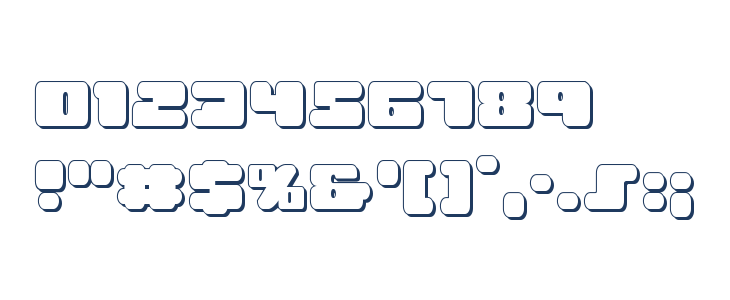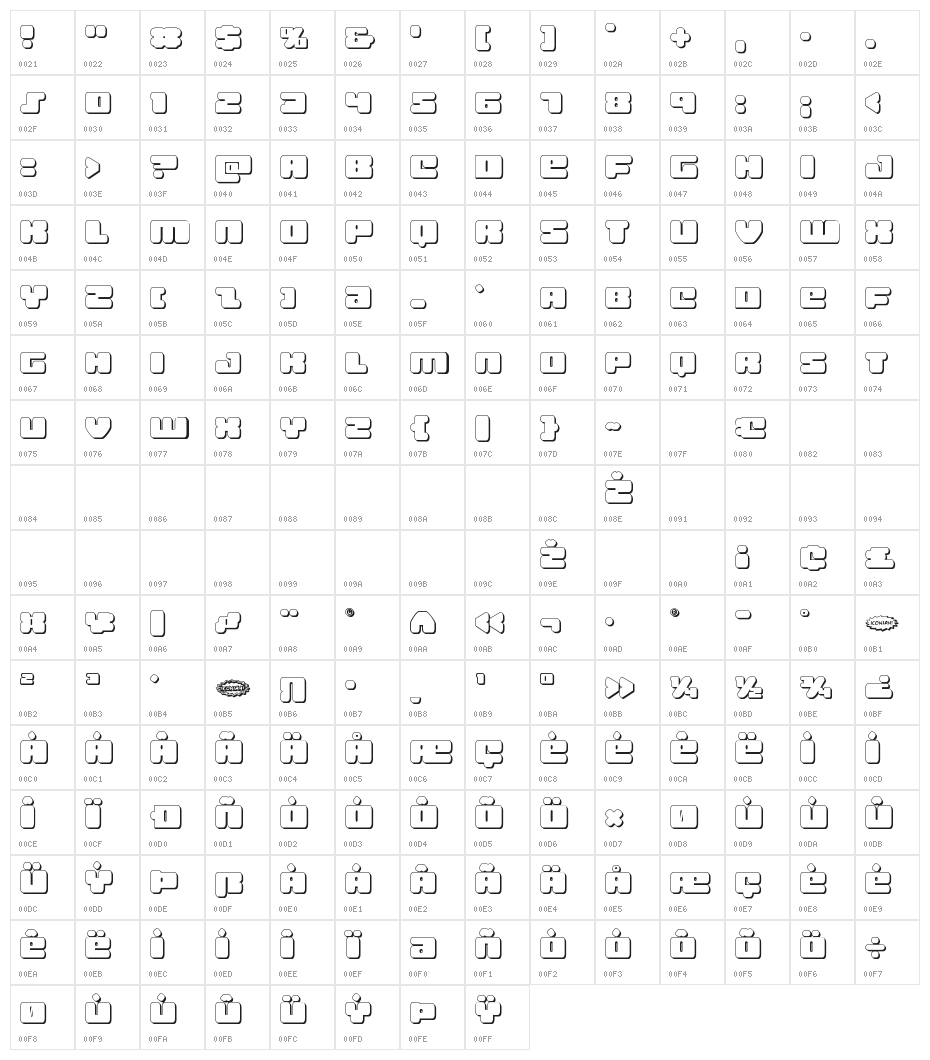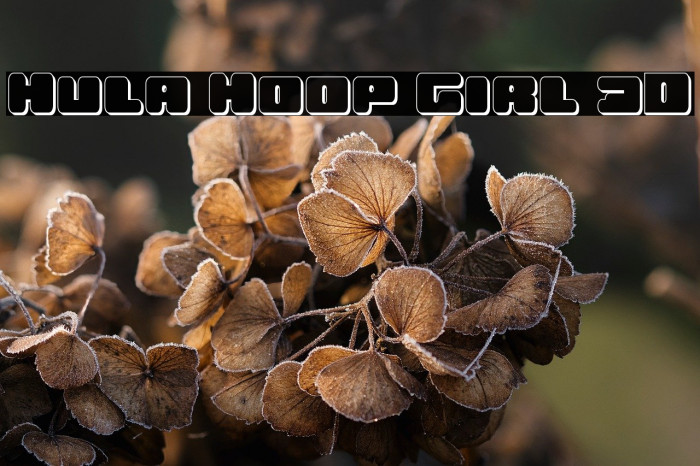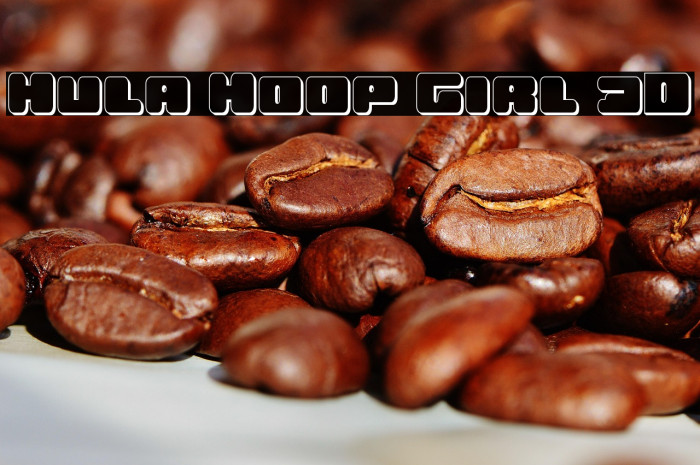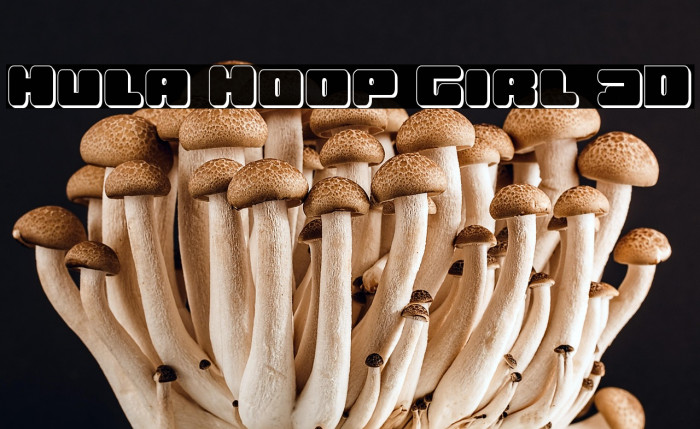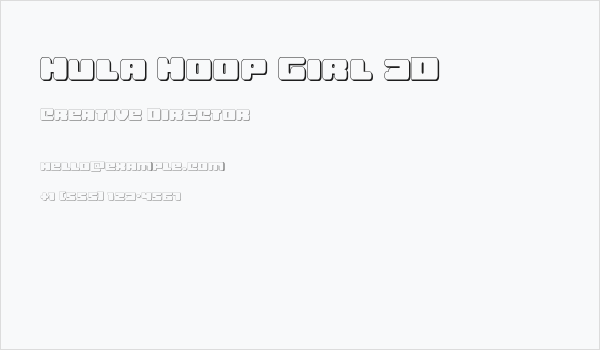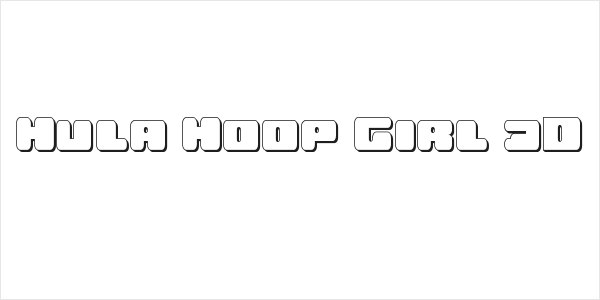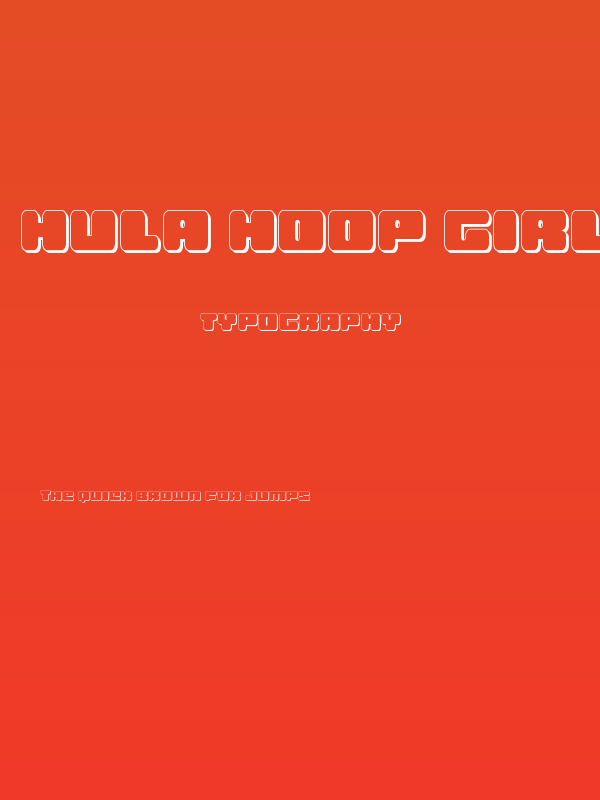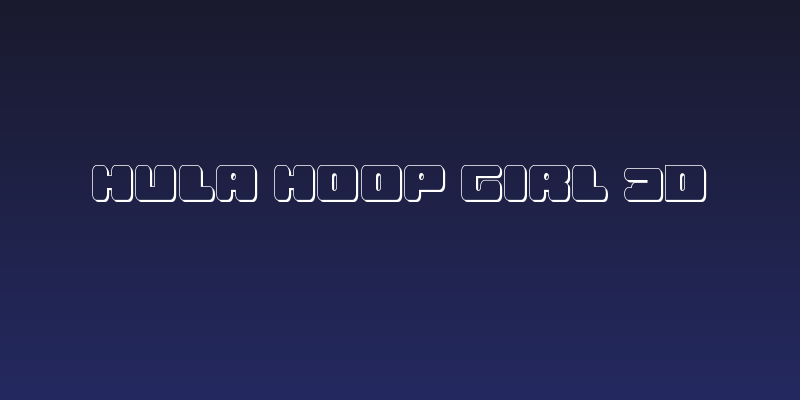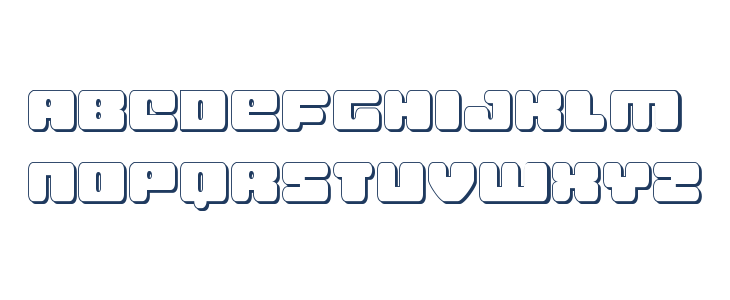
Hula Hoop Girl 3D Font
Hula Hoop Girl 3D Description
This font features a playful and bold design with a three-dimensional effect that gives it a unique, eye-catching appearance. The letters are rounded and have a bubble-like quality, with a thick outline that enhances the 3D illusion. The characters are evenly spaced, providing a balanced look. The style is consistent across uppercase, lowercase, numbers, and special characters, making it versatile for various design needs. Its distinctive style makes it suitable for projects that require a fun and engaging visual impact.
| Overall Style | Playful, Modern |
| Proposed Projects | Ideal for children's book covers, playful branding, party invitations, and creative posters. |